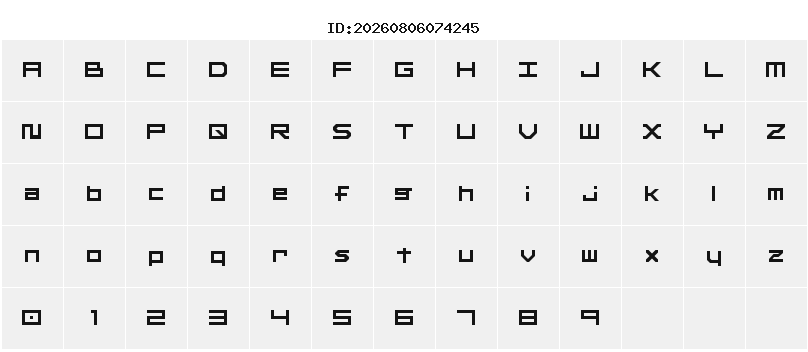
• Font Name: Other F
• Full Font Name: Other F Regular
• Designer: Corruptinator
• Description: ‚ÄúOther F‚Äù was built with FontStruct
About Other F.ttf
Other F.ttf is a modern, elegant sans-serif font designed for ultimate readability and visual harmony. Perfect for branding, headlines, web design, and print materials.